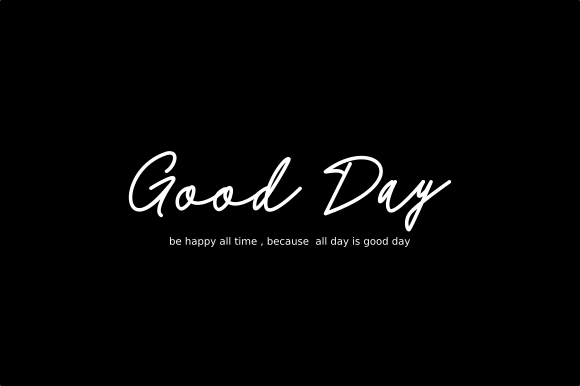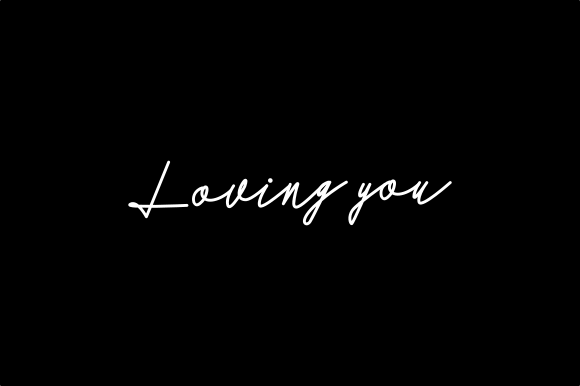
Human Font
About Human Font
Carefully crafted and meticulously drawn, Human puts authenticity at its core and delivers a sweet and heartfelt font experience.